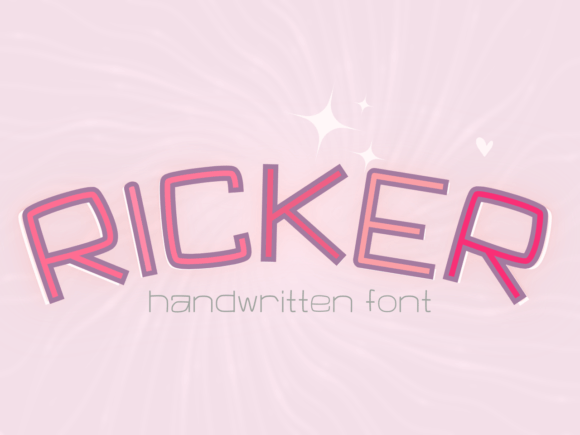
**Introducing Ricker Font: The Epitome of Typography Excellence**
Embark on a visual journey with Ricker, a sans serif font that exudes timeless elegance and eye-catching allure. Inspired by the masters of typography, this font is meticulously crafted to elevate your designs to extraordinary heights.
Indulge in the beauty of Ricker's meticulously designed characters, each adorned with a touch of artistry that brings your words to life. Experience the seamless harmony of its letterforms, gently flowing into each other, creating a captivating visual symphony.
Beyond its aesthetic charm, Ricker possesses the versatility to transform any design into a work of art. Whether you seek to create a captivating logo, establish a memorable brand identity, or share inspirational quotes, Ricker's unwavering elegance will empower your message to shine.